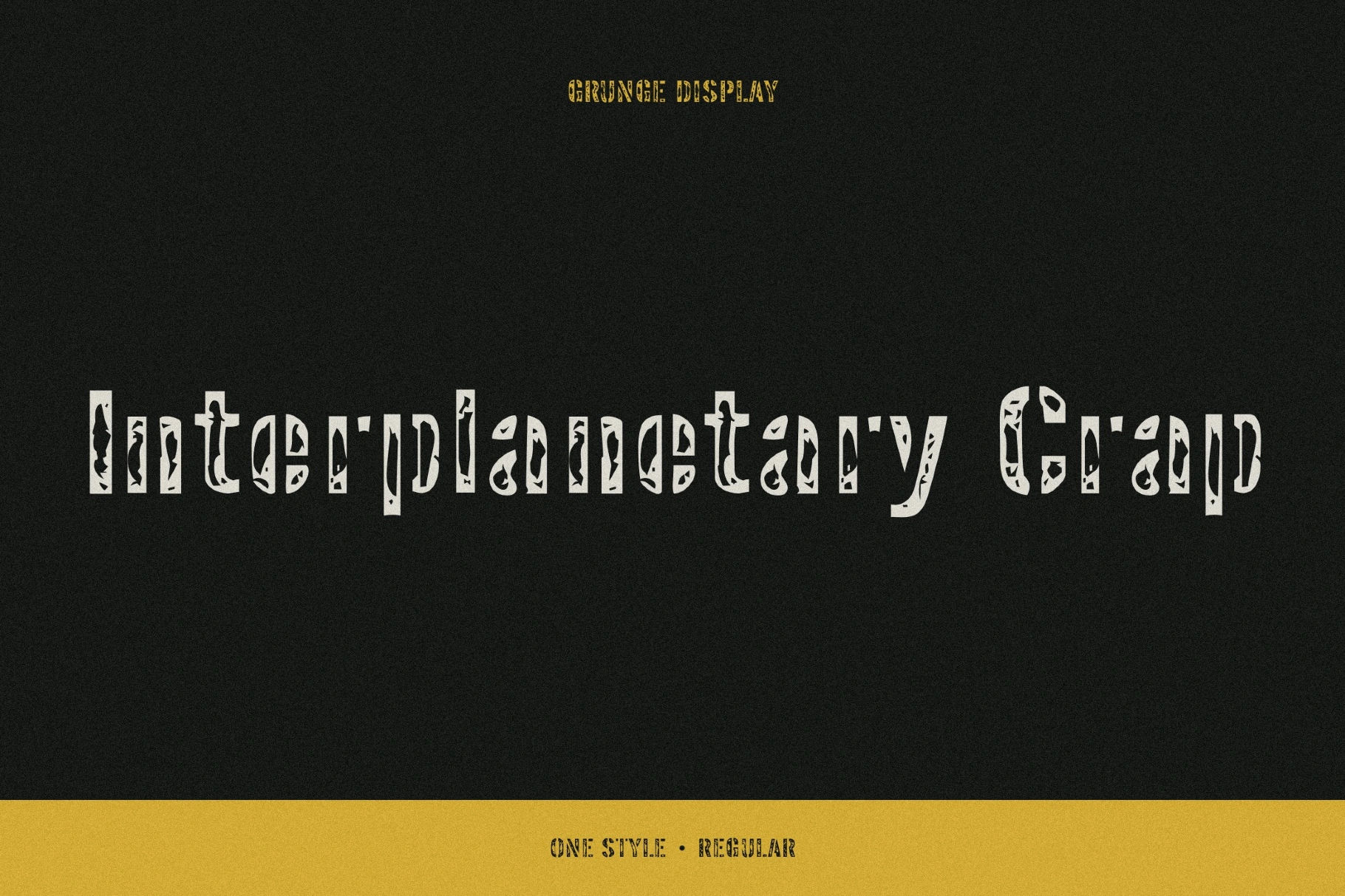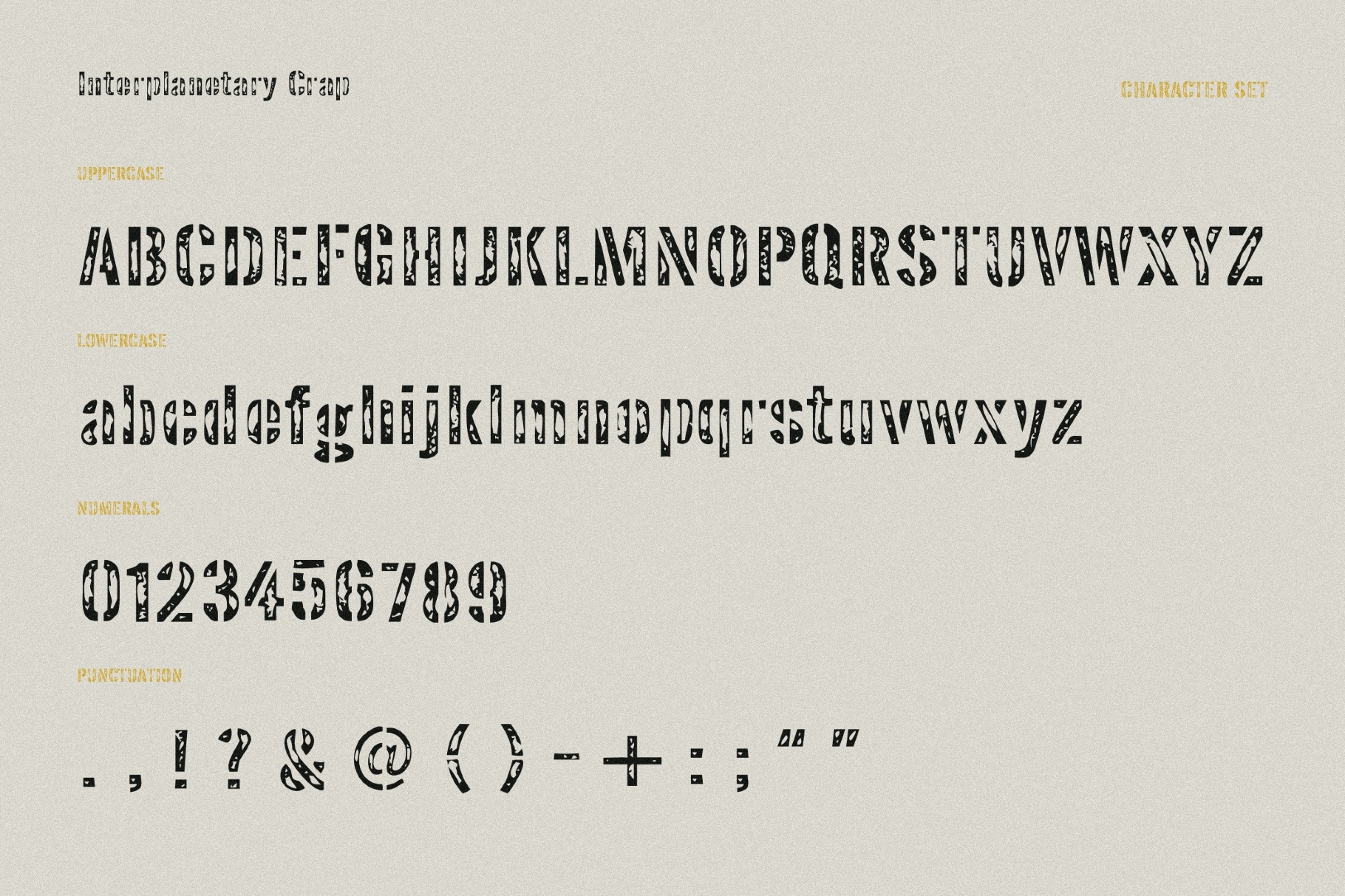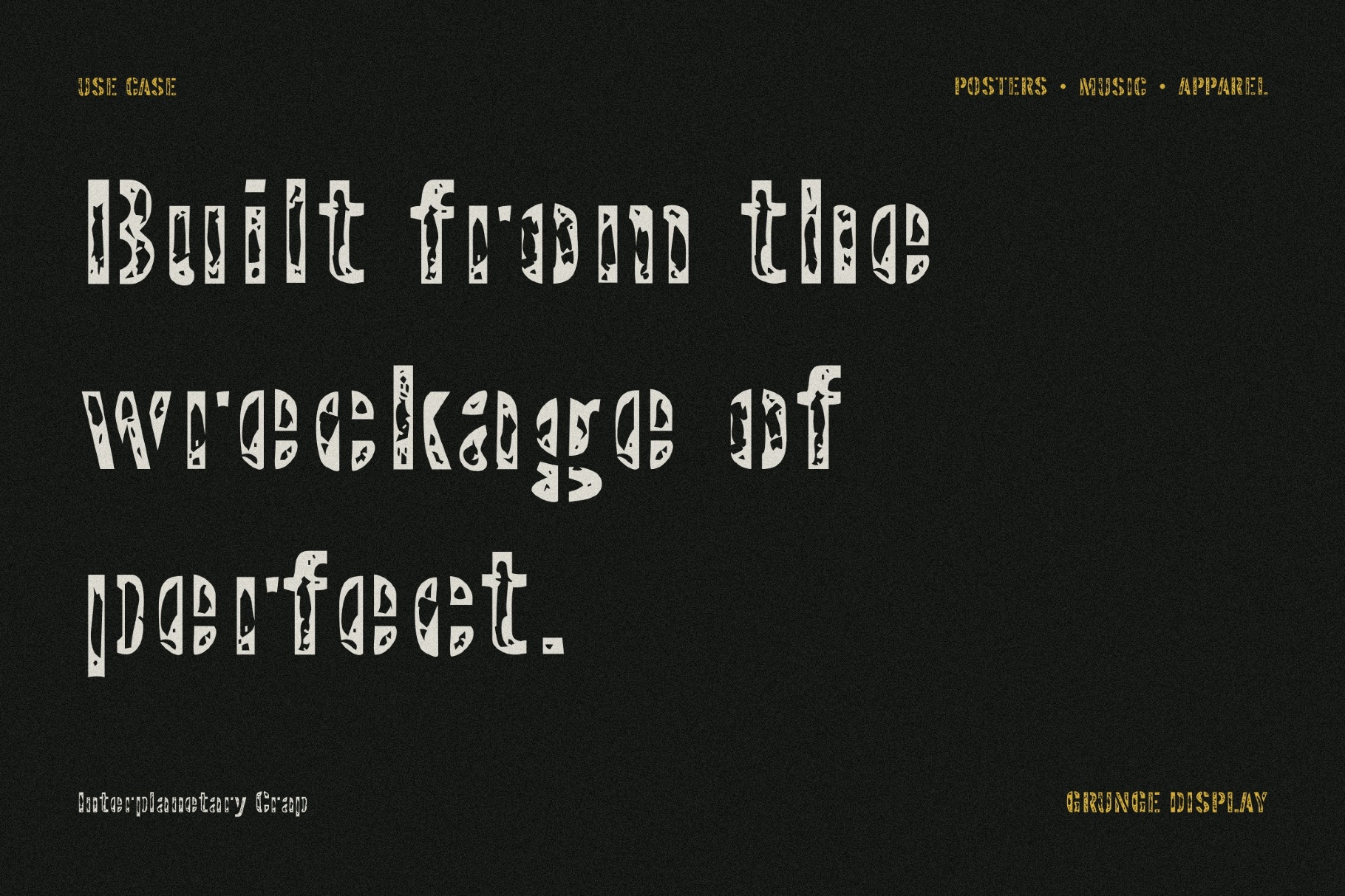
Interplanetary Crap - Grunge Military Font
Interplanetary Crap
Interplanetary Crap sounds like a distress signal printed on the side of a spaceship. Its narrow stencil letters, chipped edges, and battered sci-fi framing pull together Cold War space posters, industrial warning labels, and old control-room graphics.
The worn cutouts give the type a clipped, utilitarian rhythm that works well for game interfaces, sci-fi book covers, electronic music artwork, festival posters, tech merch, experimental branding, and social media banners.